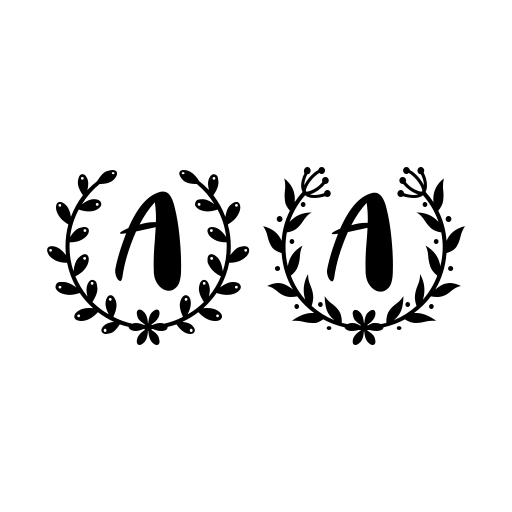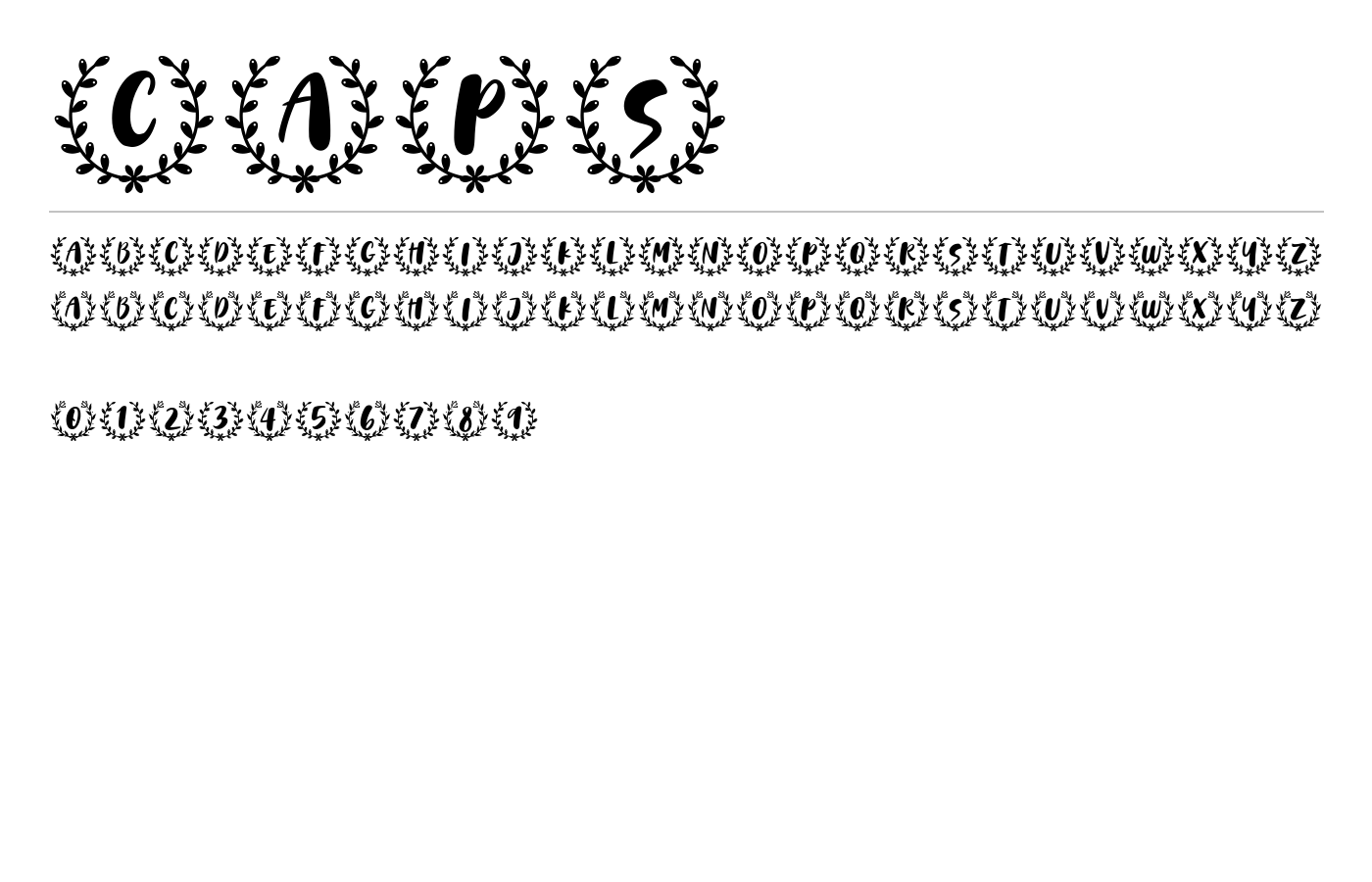
CAPS Font is a playful, decorative script featuring bold, rounded letterforms surrounded by delicate, leafy wreaths that add a natural, whimsical charm. This all-caps font combines a casual, hand-drawn feel with unique botanical embellishments, making it ideal for invitations, branding, and creative projects that seek a warm, personalized touch. Its distinct style works best in headings and logos where a lively and approachable aesthetic is desired.